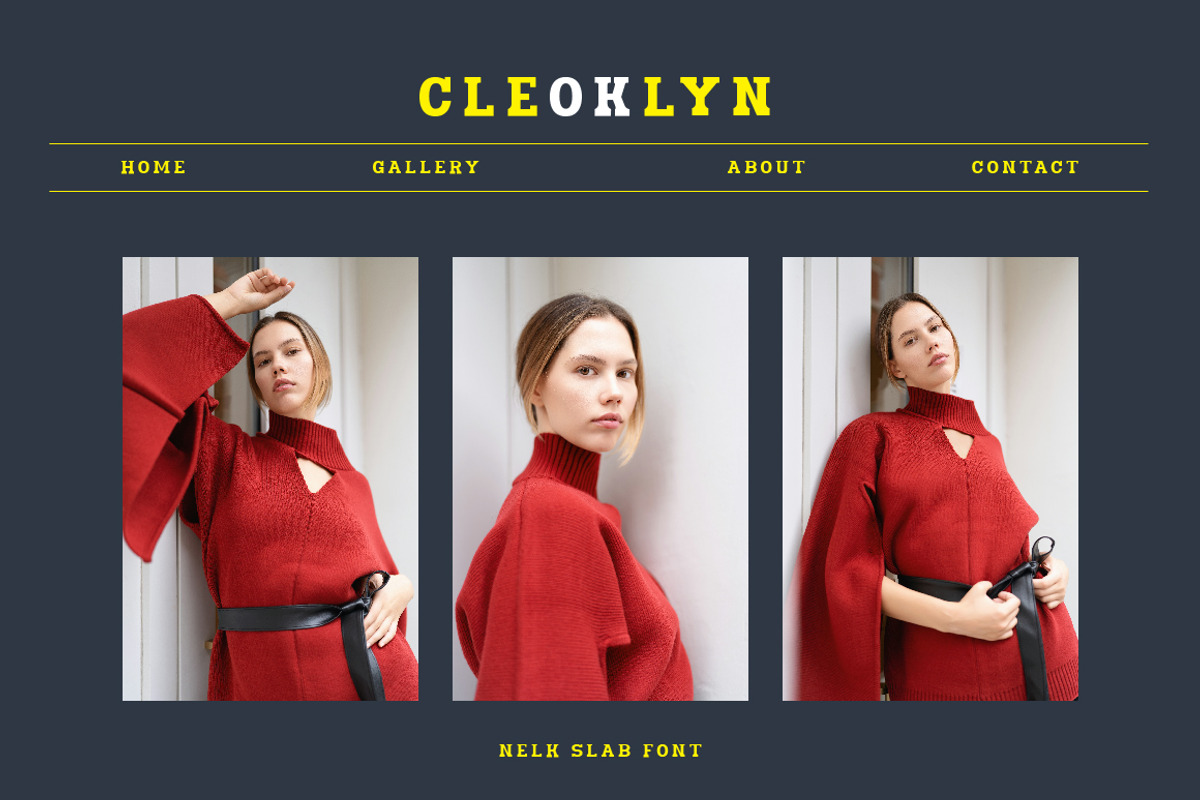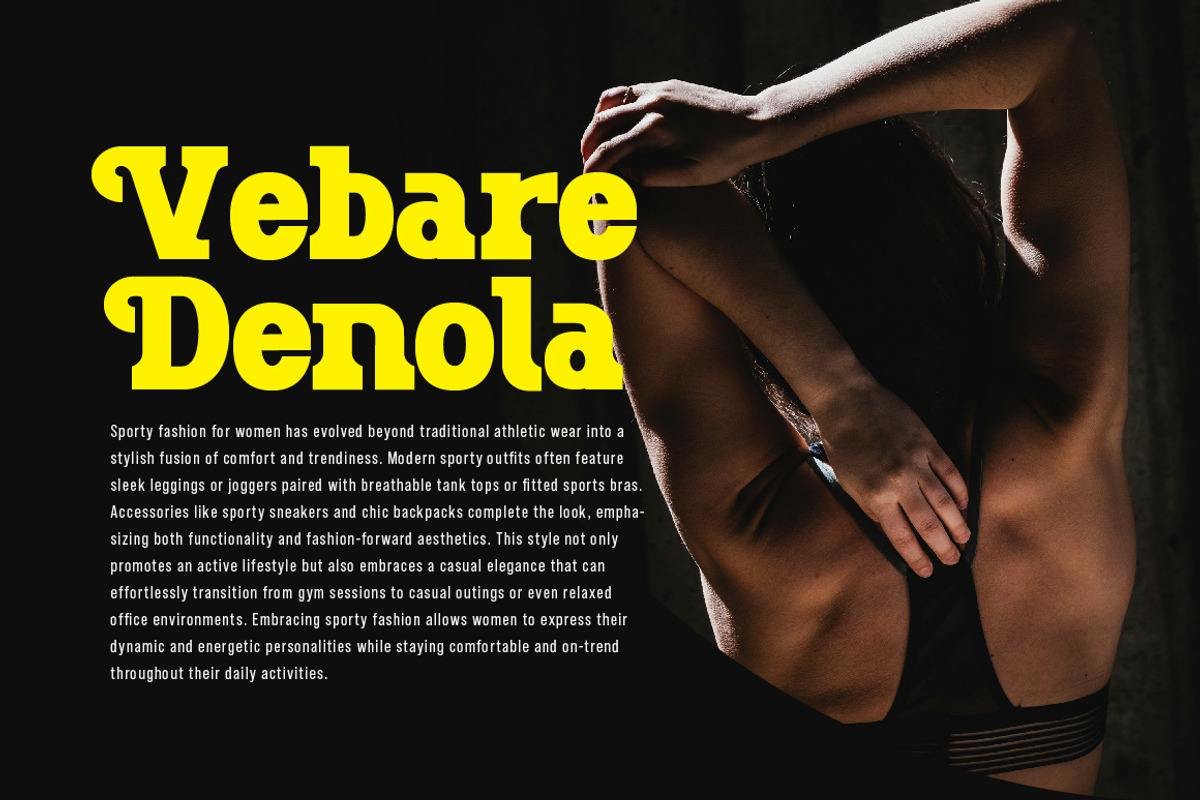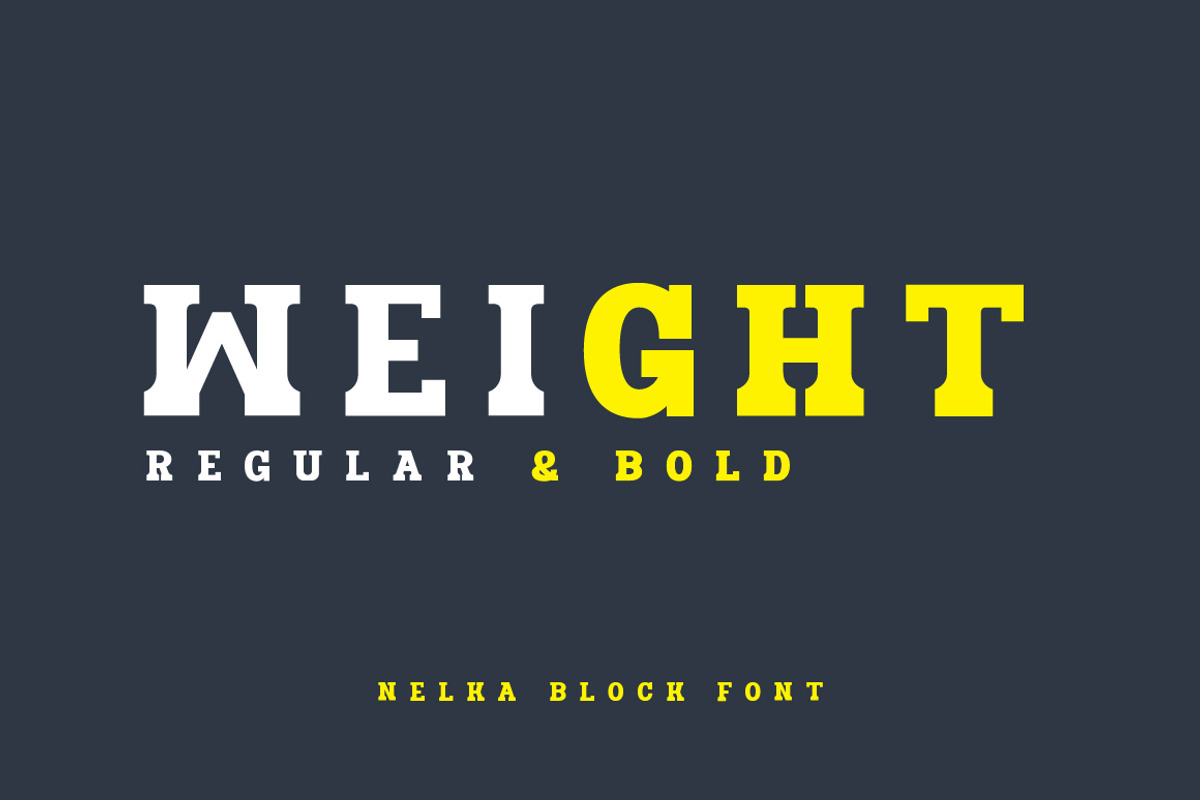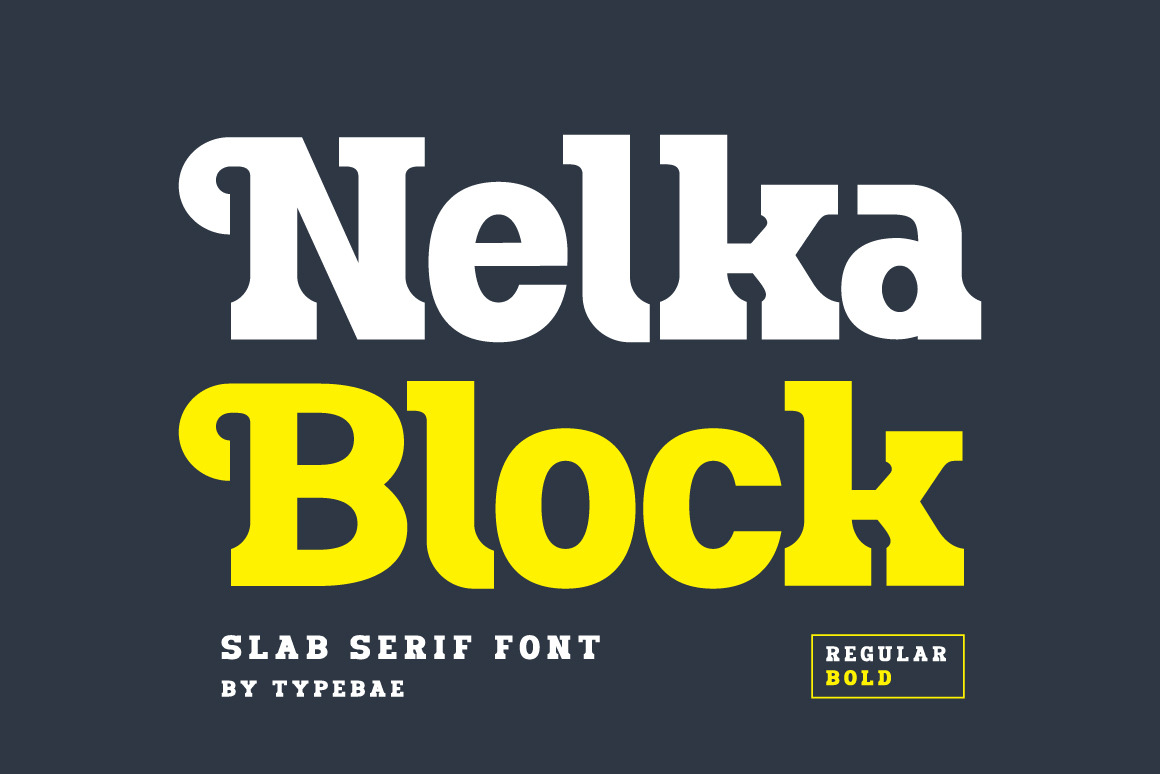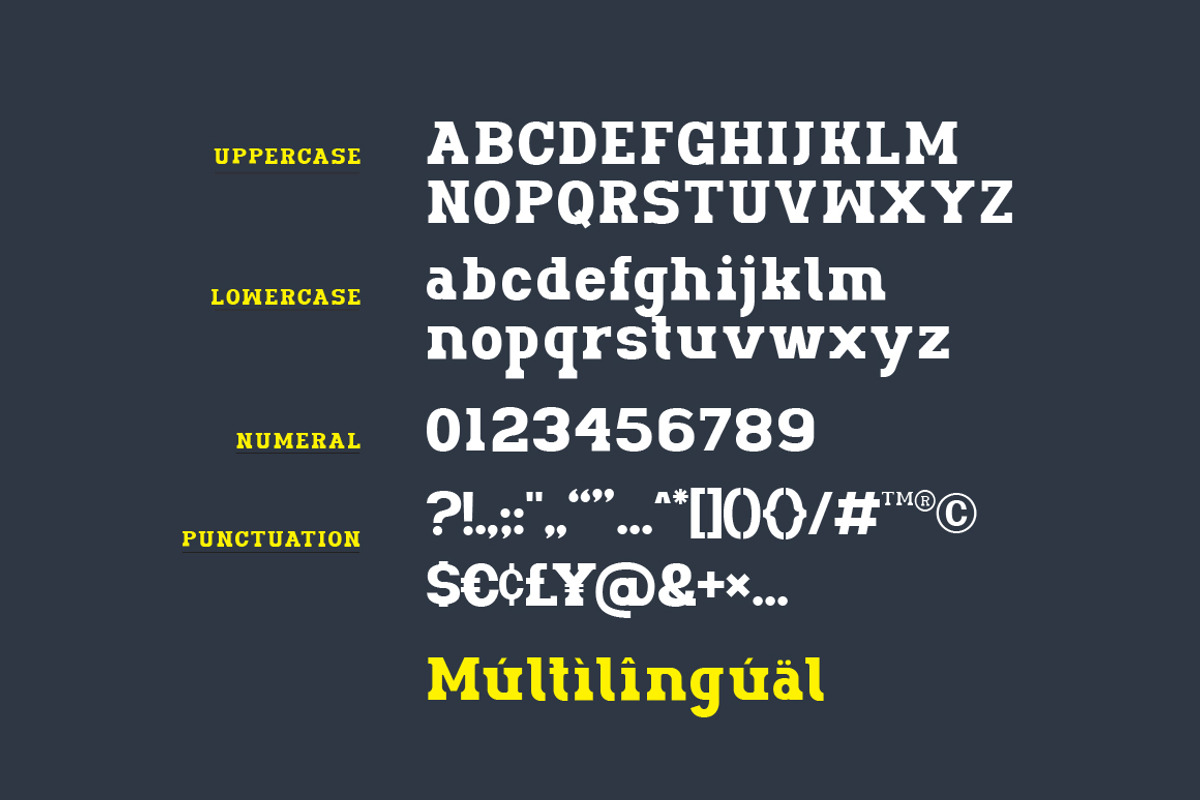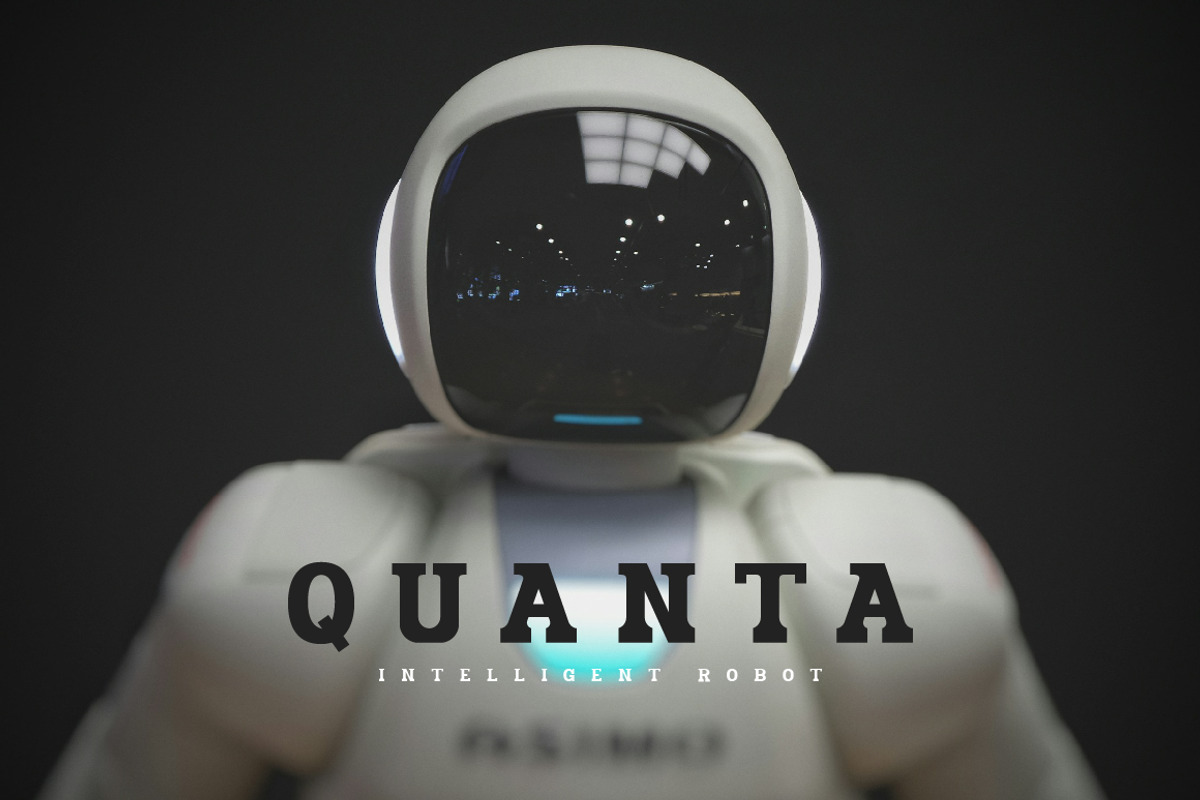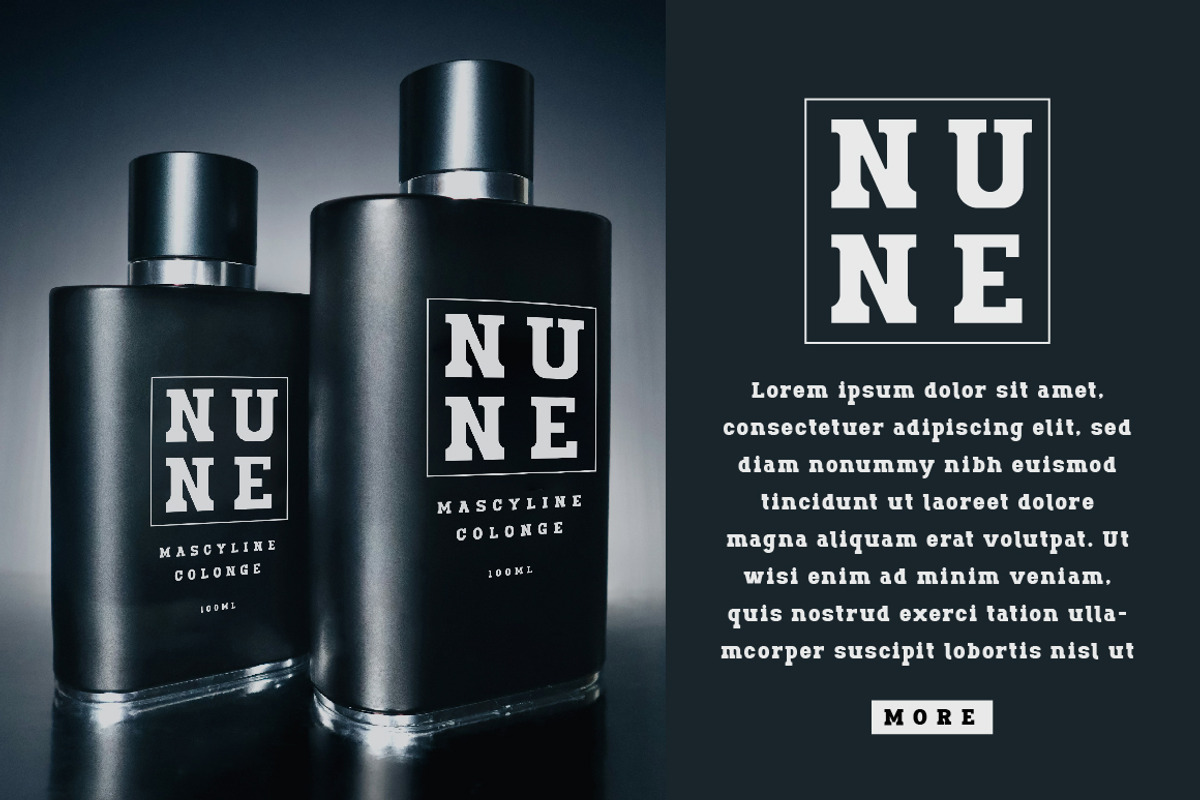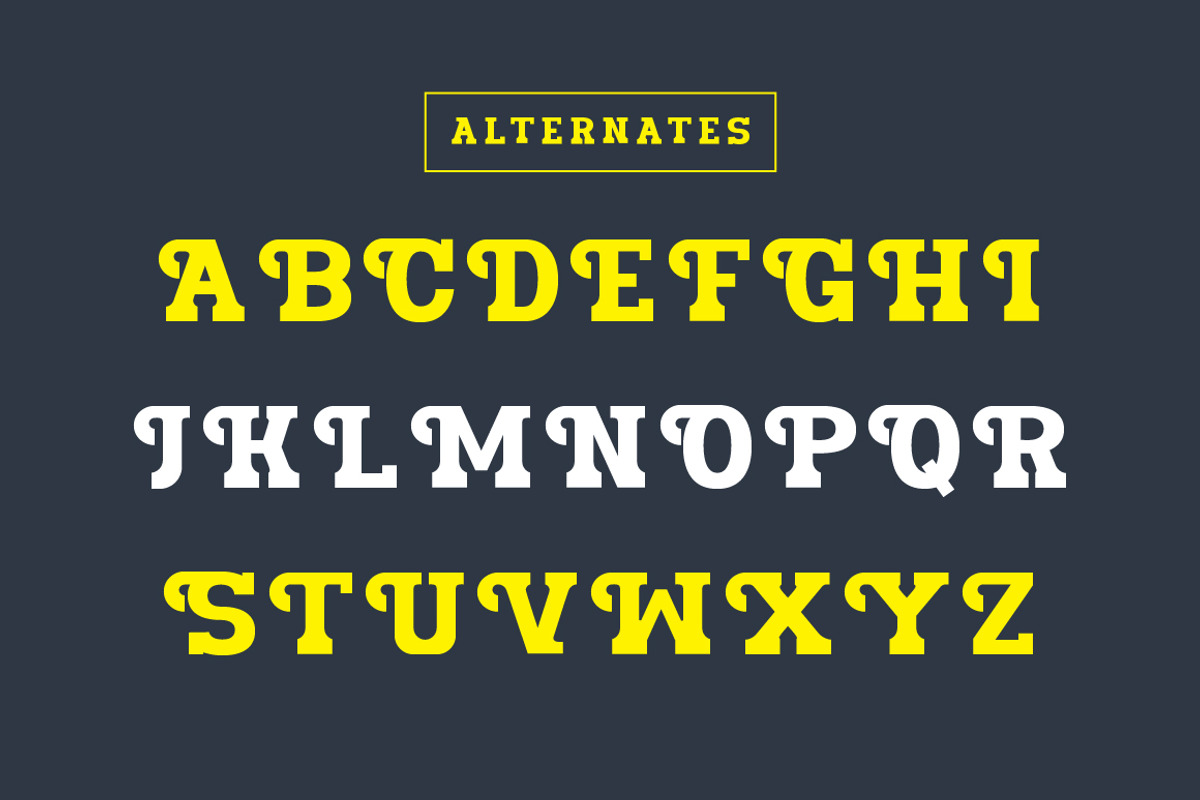
Nelka Block – Bold Slab Serif Font
Nelka Block is a bold slab serif font featuring alternate uppercase letters to enhance your creative projects.
Nelka Block is a powerful and versatile slab serif font designed to make a bold statement. With unique alternate characters for each uppercase letter, it adds a dynamic touch to your designs. Ideal for headlines, logos, signage, and any project that calls for a clean yet commanding typeface, Nelka Block effortlessly combines simplicity with impact.